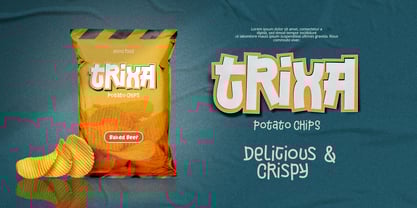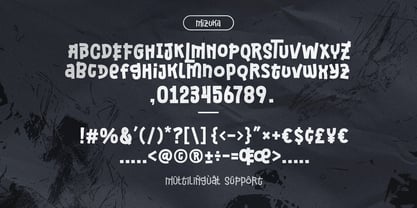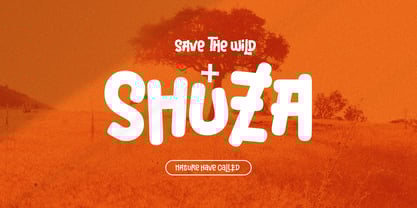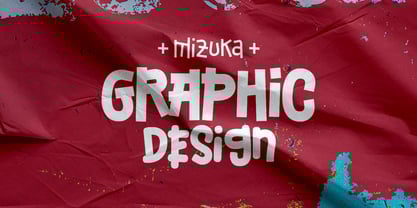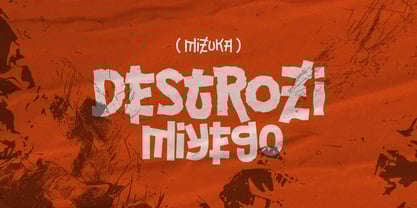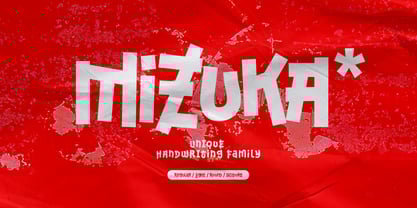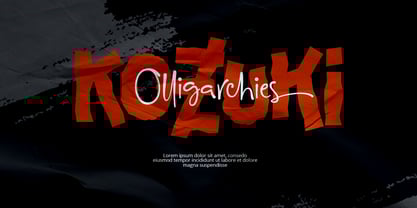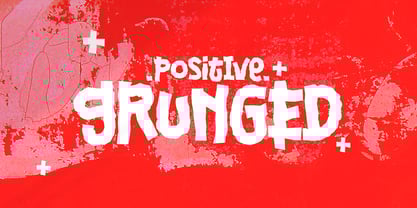
Mizuka
The Mizuka Font Family was designed by Jarnawi Saja and published by Grontype. Mizuka contains 4 styles and family package options.
Mizuka is a creative and distinctive handwriting font that blends boldness and elegance in a unique form. Featuring four versatile styles—Regular Bold, Light, Rounded, and Distort—Mizuka offers a wide range of expression for your design needs. Its handcrafted feel and artistic touch make it perfect for branding, logos, packaging, and standout headlines. Whether you're aiming for a modern edge or a playful personality, Mizuka adds character and originality to any visual project.
Features:
• Handwriting Family Font
• Unique Font
• Basic Latin Glyphs
• Numeral and Punctuation
• Currencies
• Multilingual Support